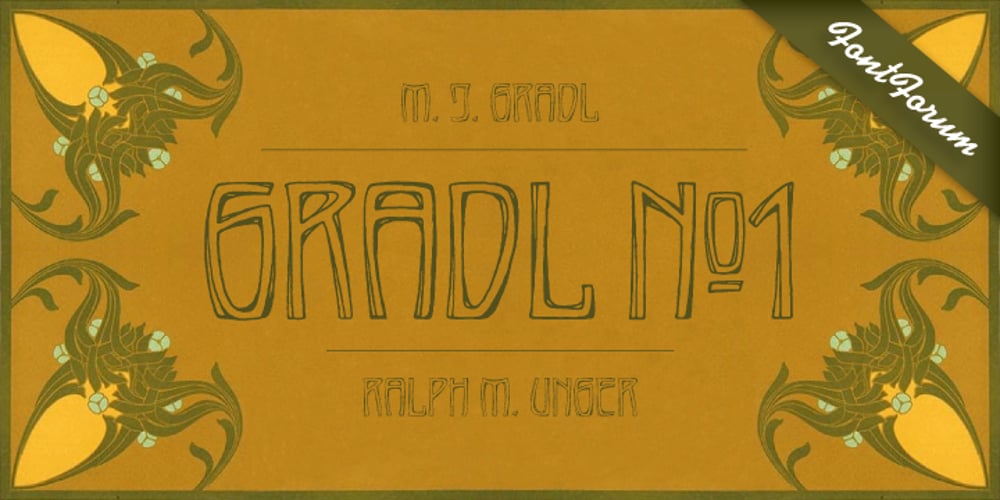
Gradl No1 Font Family was designed by Ralph M. Unger and published by URW Type Foundry. Gradl No1 contains 1 styles and family package options. Gradle Nr. 1 is yet another new art nouveau design in the URW++ library. It was reworked, redesigned, completed and digitally remastered by Ralph M. Unger for URW++, based on hand-drawn upper case characters by M. J. Gradl, about in 1900. Gradl Nr. 1 is a caps-only font perfectly suited for posters and signage.